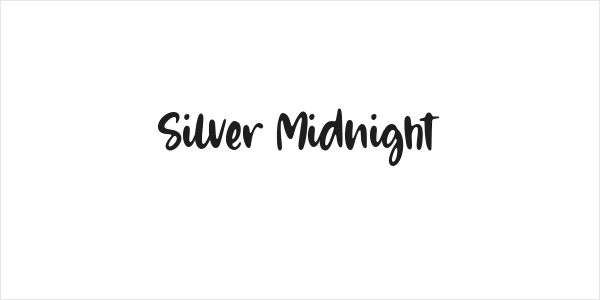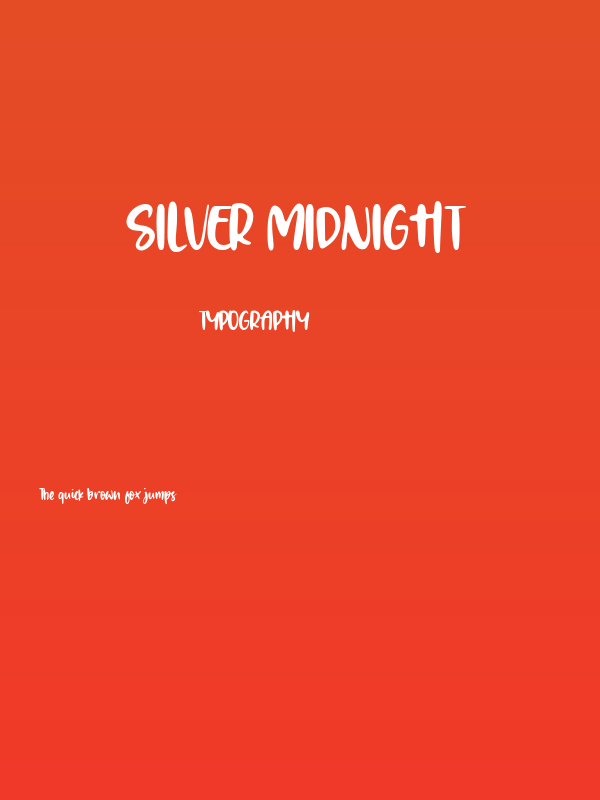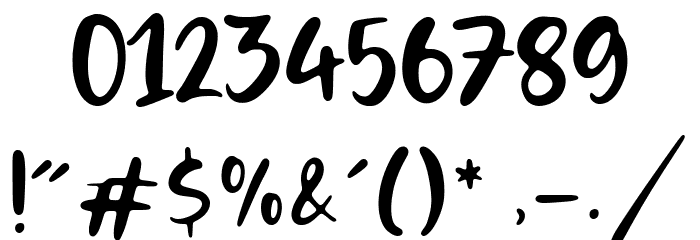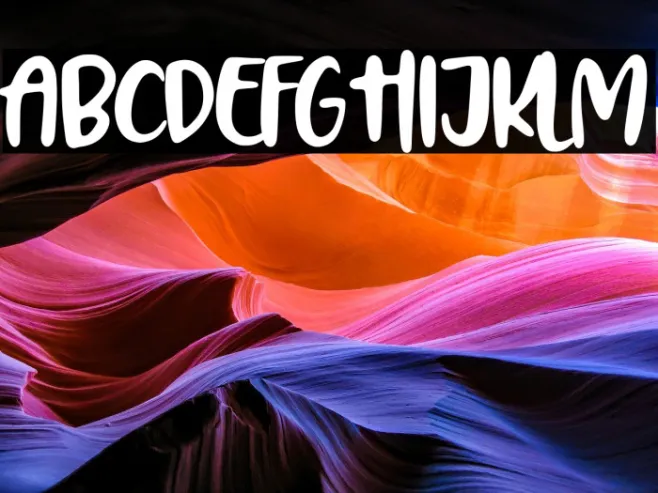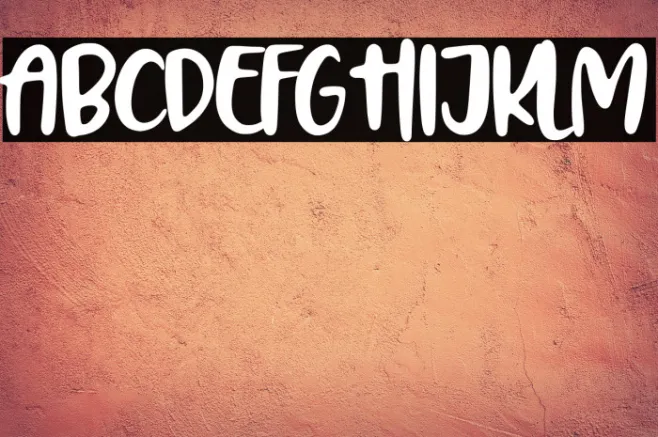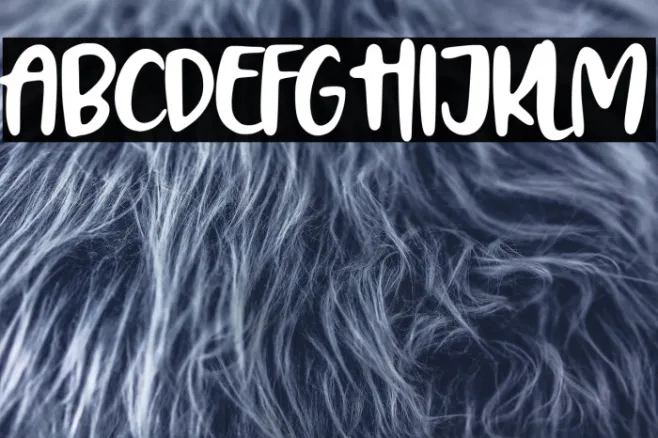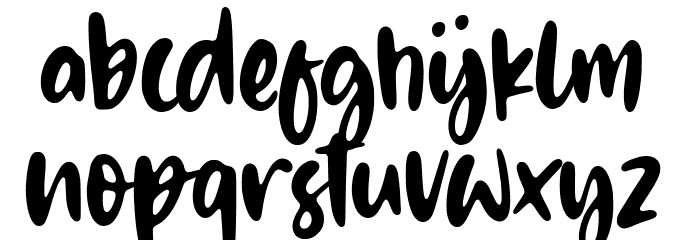
Silver Midnight Font
Silver Midnight Description
This font exhibits a bold and playful handwritten style, characterized by its thick strokes and smooth curves. The uppercase letters are slightly taller than the lowercase, with a consistent thickness that gives a cohesive look. The lowercase letters have a casual, flowing appearance, adding a touch of whimsy. Numbers are bold and rounded, maintaining the playful aesthetic. Special characters are well-integrated, matching the overall style. The font's design is ideal for projects that require a personal, friendly touch, such as invitations, greeting cards, or playful branding. Its boldness ensures readability while maintaining a unique, artistic flair.
| Overall Style | Playful, Artistic |
| Proposed Projects | Ideal for invitations, greeting cards, playful branding, and artistic projects. |